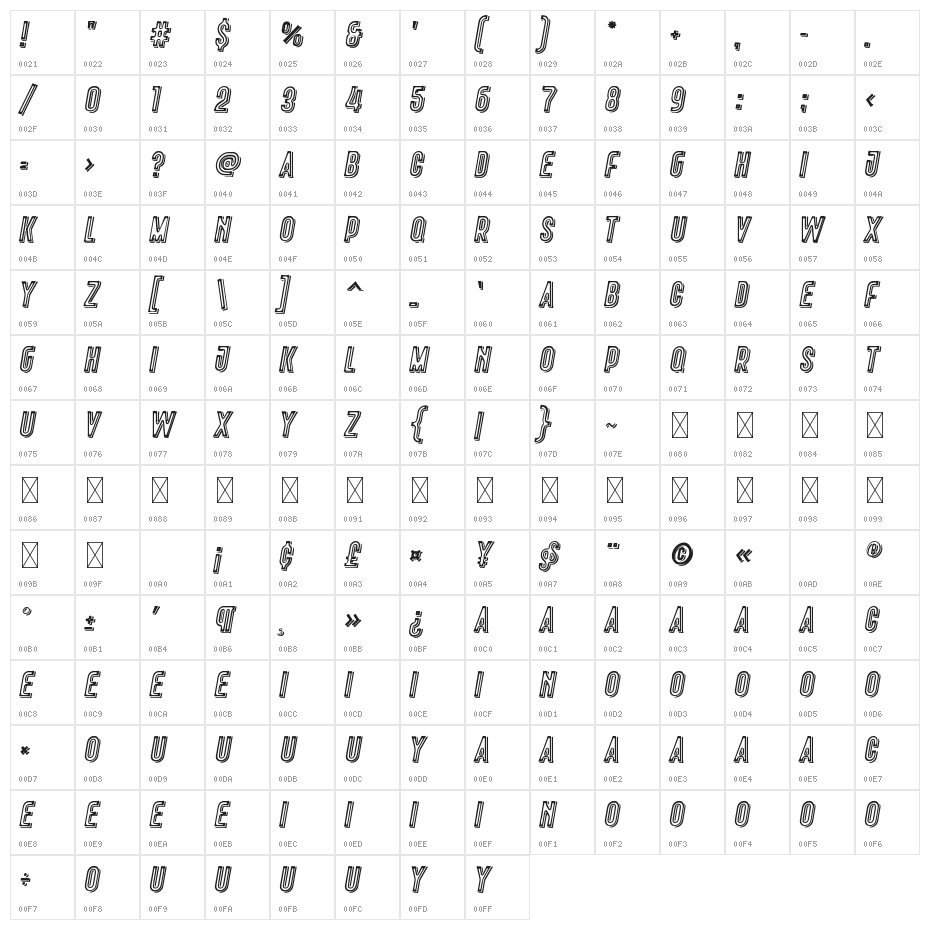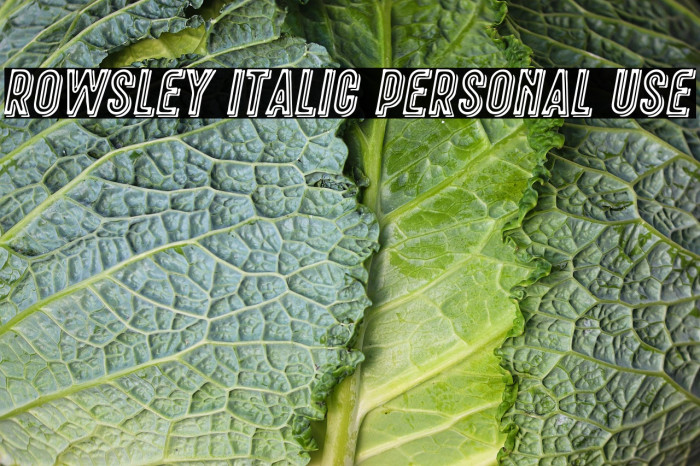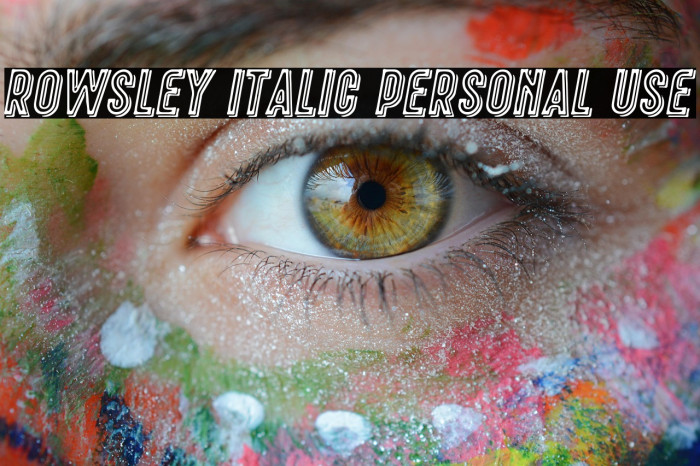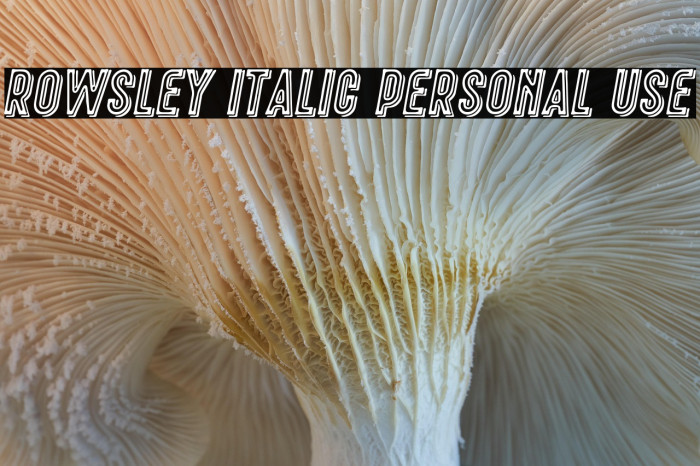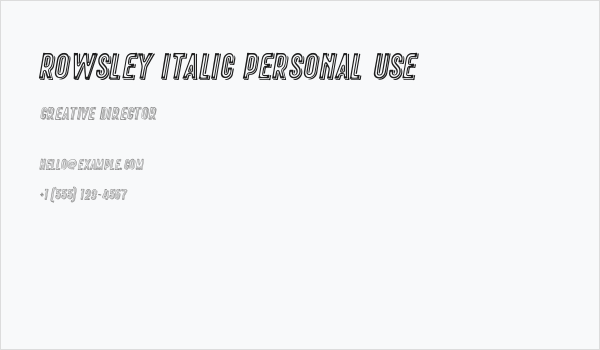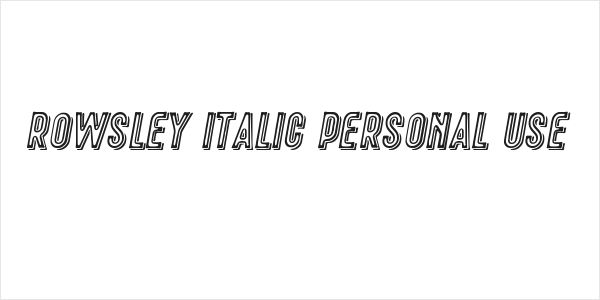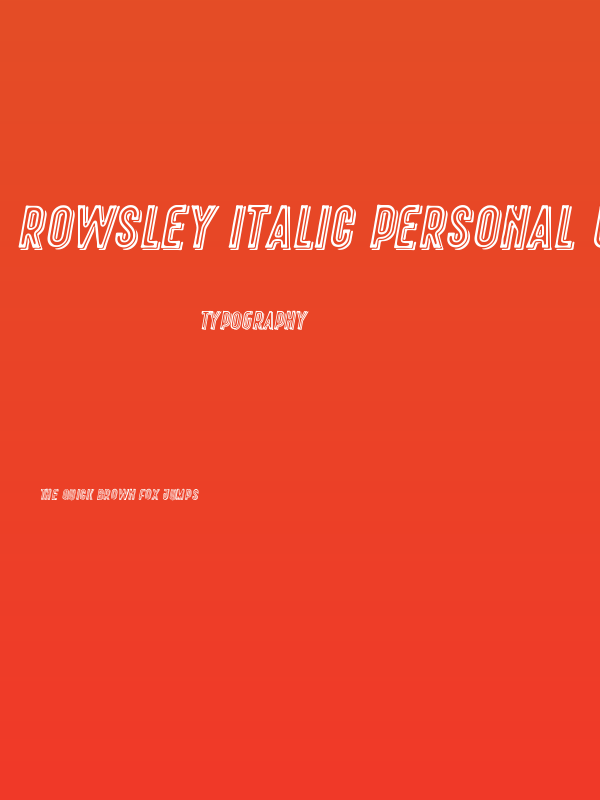
Rowsley Italic Personal Use Font
Rowsley Italic Personal Use Description
This font features a bold, italicized style with a distinct outline that gives it a three-dimensional effect. Each character is designed with a consistent stroke width, creating a uniform appearance across the alphabet and numerals. The uppercase and lowercase letters maintain a cohesive look, while the numbers and special characters are crafted to match the overall aesthetic. The font's design is both modern and playful, making it suitable for creative projects that require a standout typeface.
| Proposed Projects | Ideal for posters, headlines, branding, and any design needing a bold, eye-catching typeface. |